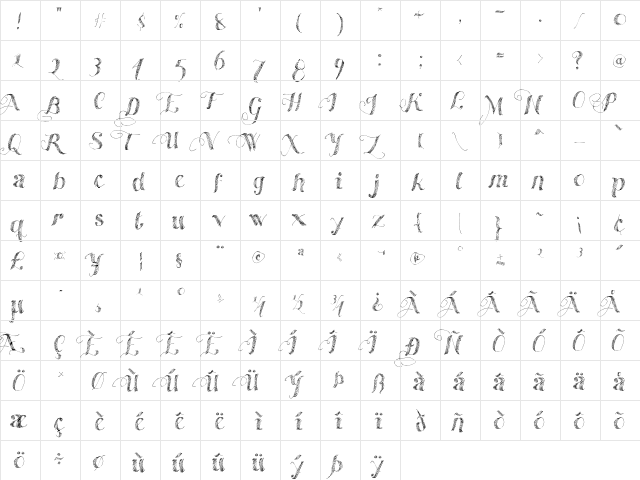
Made With B Regular
Design Context for Made With B Typeface
Made With B is a composed and adaptable typeface that performs quietly and consistently across a wide range of design contexts.